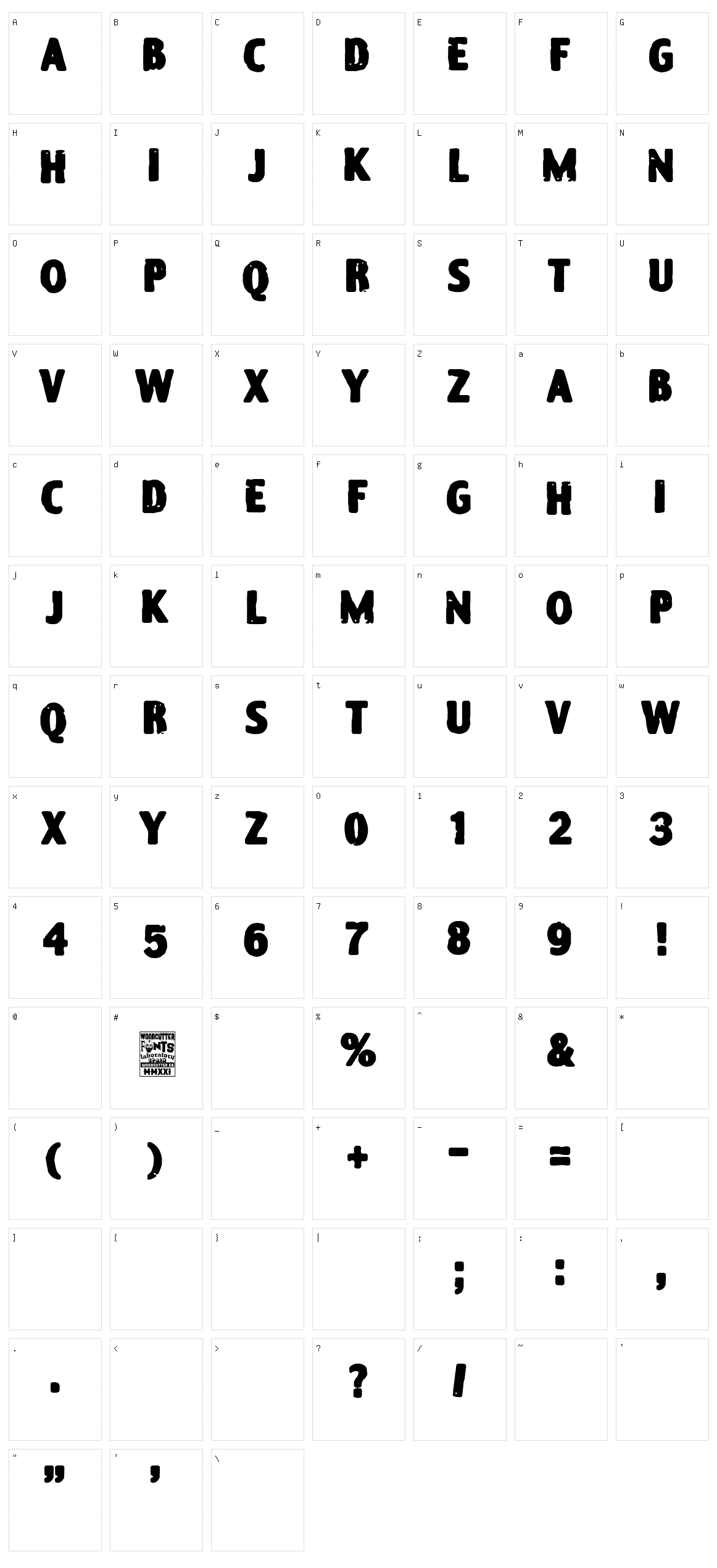
The free font Jennie on the Block is carefully designed by Woodcutter, showcasing a thoughtful balance of creativity and usability and falls under the Eroded font style. When you download the ZIP file, it contains only 67.39 KB of font files, making it lightweight and quick to download. Please review the license details below to understand permitted usage and distribution rights. If license information is not available, we recommend using this font for personal projects only or contacting the author directly for commercial usage permissions.